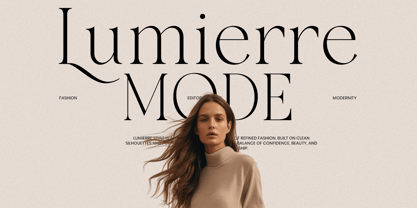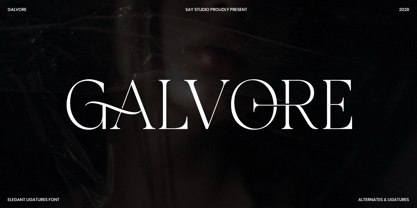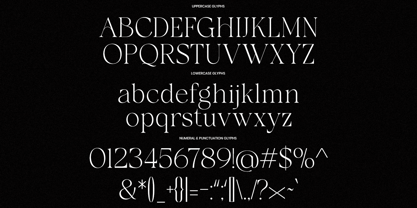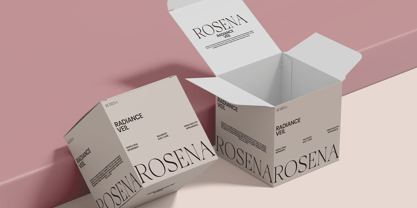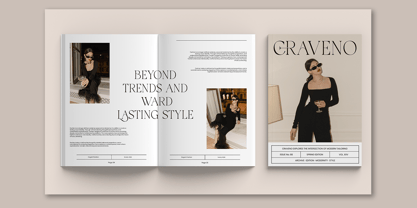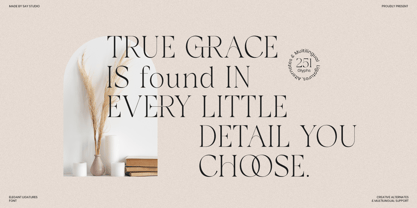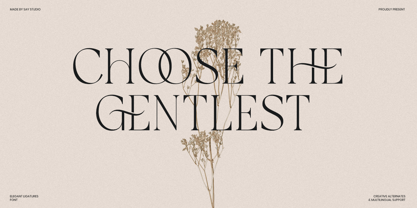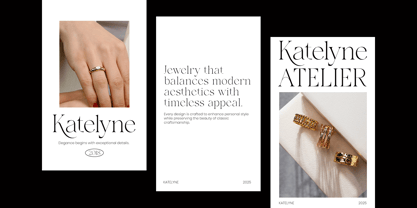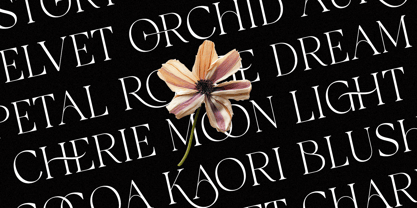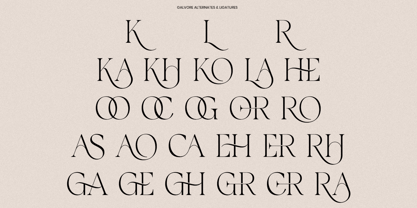
Galvore
Galvore is a sophisticated serif display font crafted for luxury branding, high-end editorials, fashion campaigns, and premium visual identities. Featuring graceful proportions, refined contrast, and beautifully crafted ligatures, this typeface delivers a timeless aesthetic that feels both classic and contemporary. Every letterform is designed to create an elegant visual rhythm, making Galvore an excellent choice for brands that value exclusivity, beauty, and distinction.
Inspired by modern fashion magazines, luxury packaging, jewelry branding, and boutique identities, Galvore combines delicate serif structures with stylish alternates that elevate typography into a statement piece. Its unique ligature system creates seamless connections between characters, producing sophisticated wordmarks and memorable headlines that instantly capture attention. Whether used for logos, magazine covers, beauty products, wedding stationery, or premium advertising, Galvore brings a polished and luxurious presence to every design.
With stylish ligatures, extensive glyph coverage, and versatile OpenType features, Galvore offers designers the flexibility needed for professional branding projects. From elegant packaging and cosmetic labels to editorial layouts and luxury fashion campaigns, this font delivers a refined visual language that communicates confidence, elegance, and modern sophistication.
• Galvore Regular and Italic
• Stylistic Ligatures
• Uppercase and Lowercase
• Number, Symbol, and Punctuation
• Multi Language Support